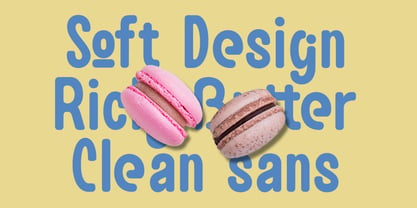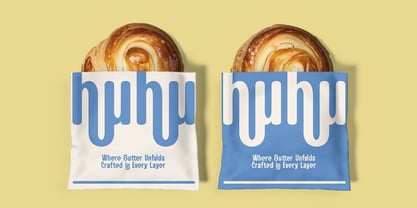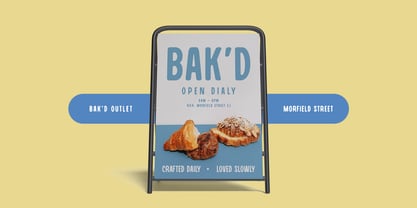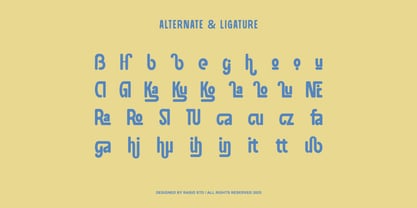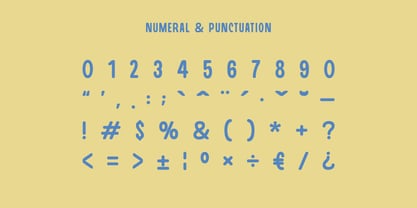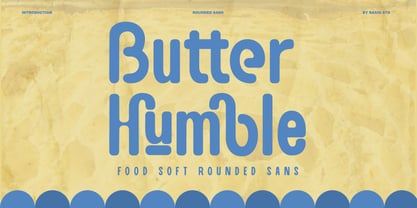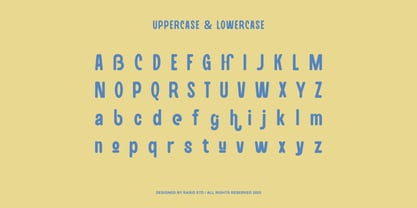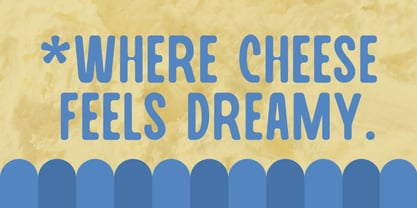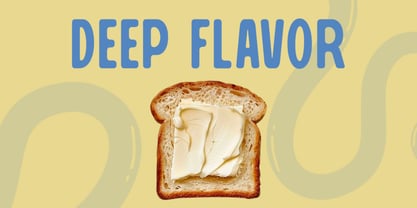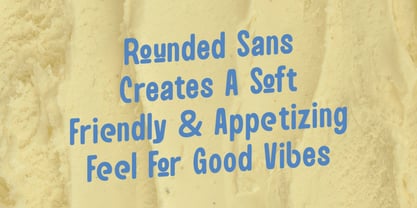
Butter Humble
La familia tipográfica Butter Humble fue diseñada por Fajar Indra y publicada por Rasio Studio. Butter Humble contiene 1 estilos. Más información sobre esta familia
Butter Humble is a playful rounded sans serif font inspired by the smooth richness of creamy butter and soft dessert visuals. Designed with food branding and product packaging in mind, this font brings warmth and approachability to any design. Featuring uppercase and lowercase characters with charming soft terminals, it maintains excellent readability while giving off a sweet and friendly vibe. Butter Humble is ideal for food-based projects such as snack logos, bakery menus, cafe signage, dessert packaging, and child-focused products. Its approachable and bubbly design is well-suited for anything that aims to feel soft, joyful, and delicious.